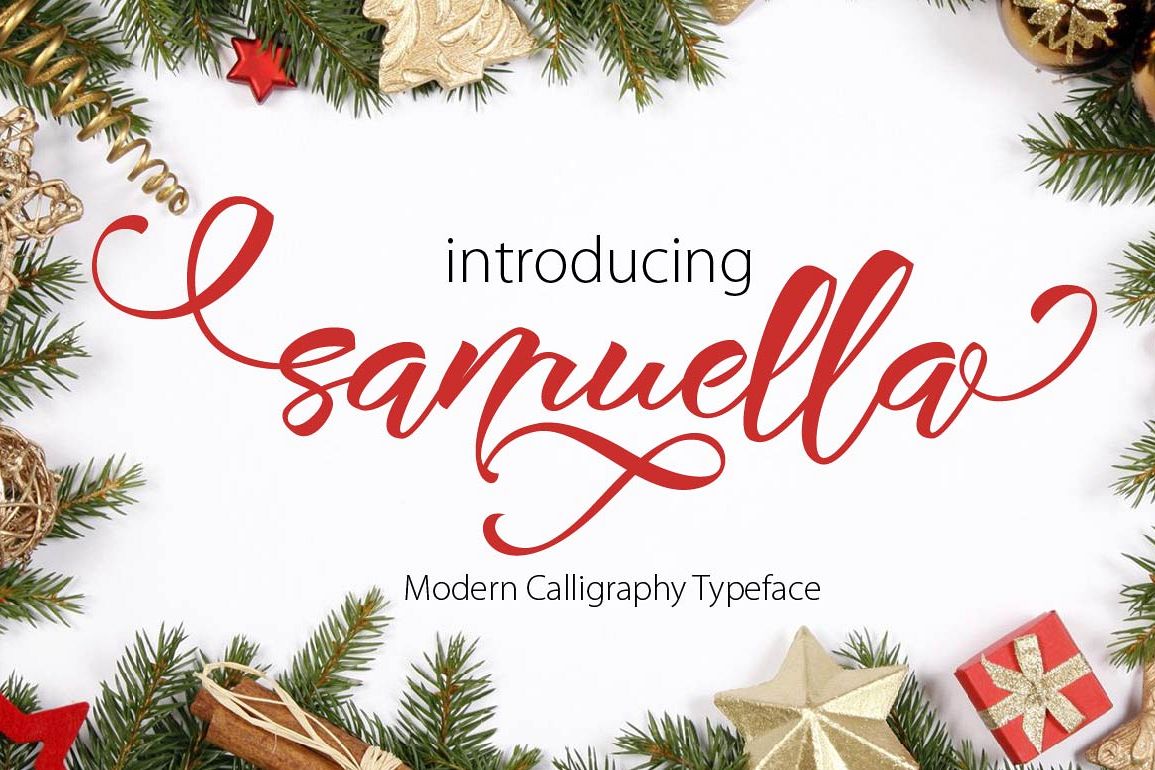
SAMUELLA SCRIPT
Samuella Script.
Samuella Script is a modern Calligraphy typeface, It suitable for wedding invitation, greeting cards, watercolor based design, or any design that you create. Samuella Script font comes with a complete set of standard characters, Punctuation, international glyphs, The alternative characters were divided into several OpenType features such as Ligature & Alternates
UPPERCASE
lowercase
numeral
punction
international glyphs
Stylistic Alternates
Character Alternates
SWASHES
Ligatures